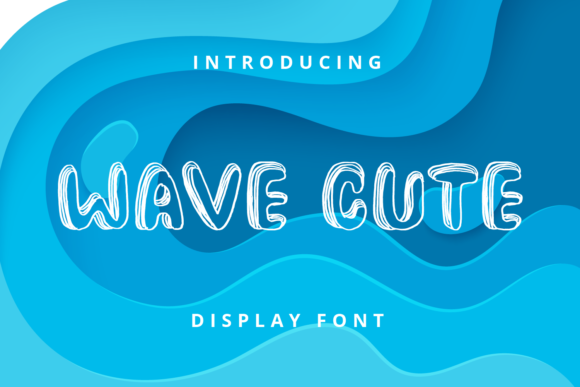
Step into a world of whimsy and enchantment with the Wave Cute Font, a captivating display font crafted by the visionary designers at Planetz Studio. This font is a symphony of playful strokes and magical outlines, ready to ignite your imagination and transform your creative endeavors into enchanting realities.
With its unique and captivating style, the Wave Cute Font is the perfect choice for those seeking a font that exudes personality and charm. Its playful nature adds a touch of whimsy to any project, while its quirky details give it a captivating edge.
Unleash your creativity and let the Wave Cute Font take you on a journey of artistic expression. Its versatility knows no bounds, making it the ideal font for a wide range of projects, from logos and branding to website designs and social media graphics.
With each stroke of the Wave Cute Font, you'll infuse your designs with a sense of magic and wonder. Embrace its enchanting aura and watch as your creations come to life, capturing the attention of all who lay their eyes upon them.
So, embark on this enchanting journey with the Wave Cute Font. Let its playful spirit ignite your imagination and transform your designs into captivating works of art. With this font as your creative companion, you'll unlock a world of endless possibilities and leave a lasting impression on your audience.